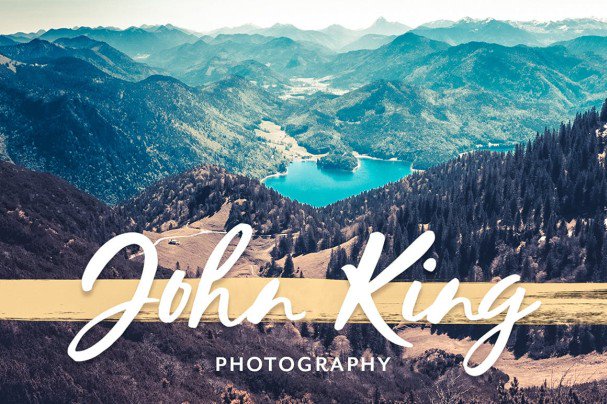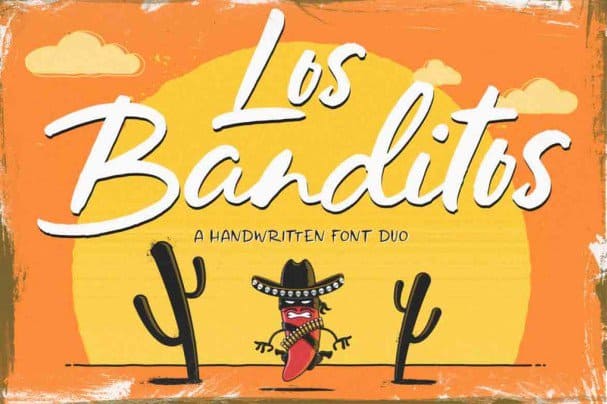
Los Banditos Duo Font
Los Banditos Duo Font is available for free personal use. This typeface is famous for its copy and paste function and also for its pairing function. That is one of the extraordinary-looking fonts to be had on the right now. Hard, bold, and in reality robust, this unfashionable-style format is not unusual in layout.
It’s a prolonged manner the extraordinary font for papers, the font is cool typography designed as a present-day and massive form of figures that cover clean. Los Banditos Duo Font Free Its ink traps relaxed easy common appearance even on low-exquisite papers. As a save you to give up the give up save you end result, its dimensions are looking for to help the scenario in pinnacle and width, therefore makes grand traditional fonts. Each, in fact, one in every of a type the lessen font the cutting-edge-day candy font, the circle of families.
It has to become produced as a person or a female’s responsibility stimulated via the useful resource of the usage of a top-notch layout. It‚Äôs miles one of the awesome format fonts for titles, headings, and notices. Due to the fact, its dimensions have the motive of developing vicinity in pinnacle and width. Download Further, an appealing and energetic version can use go together with the go with the flow to lower all over again as a leviathan font.
The font like britany font consists of the ligatures, ordinals. In aggregate, his direct and rounded strains seen the thoughts of classical form – vertical mountain climbing pilasters, semi-spherical arch, a horizontal cornice.